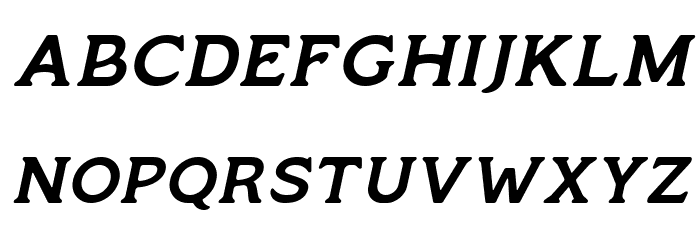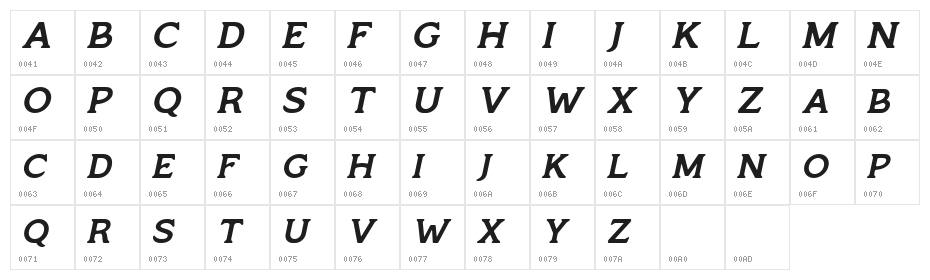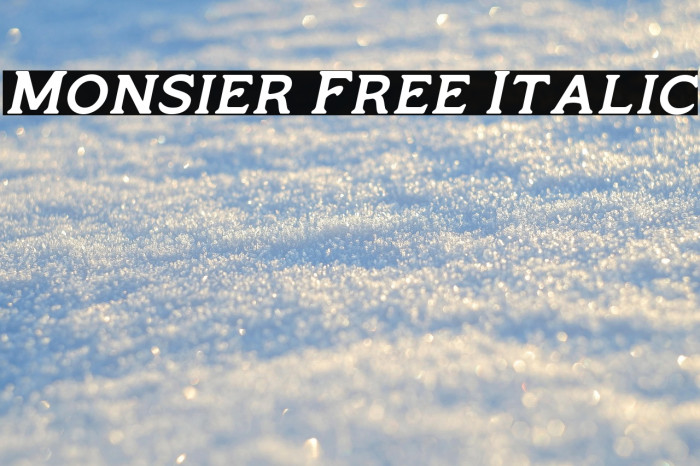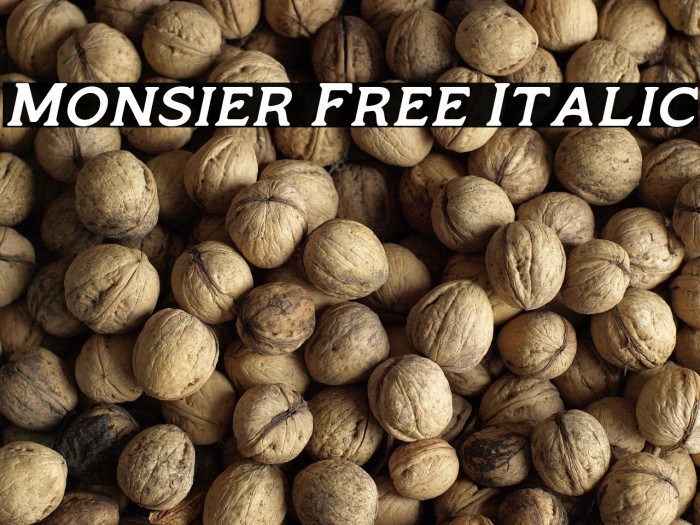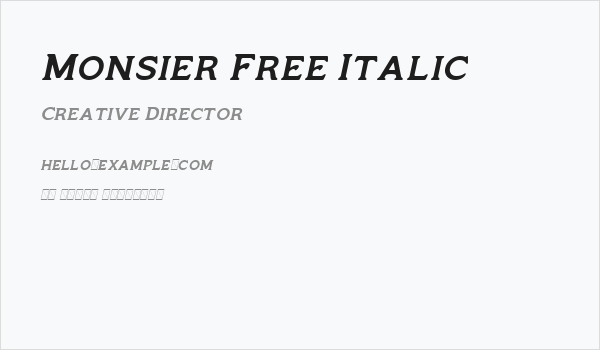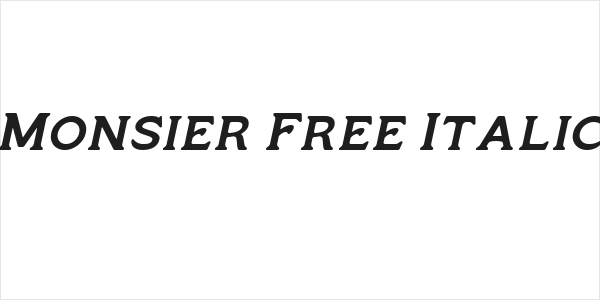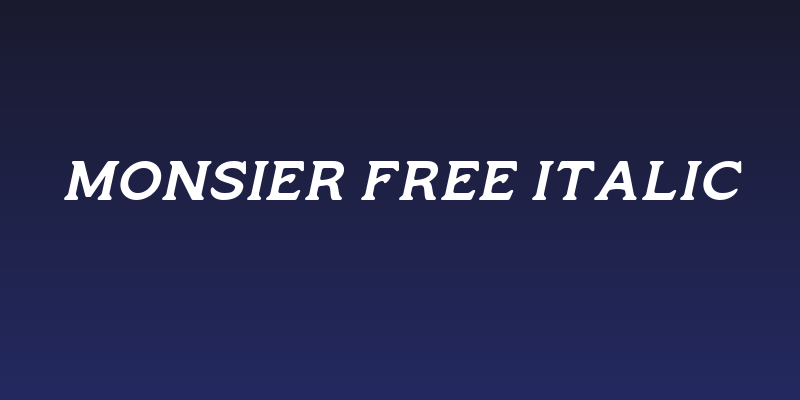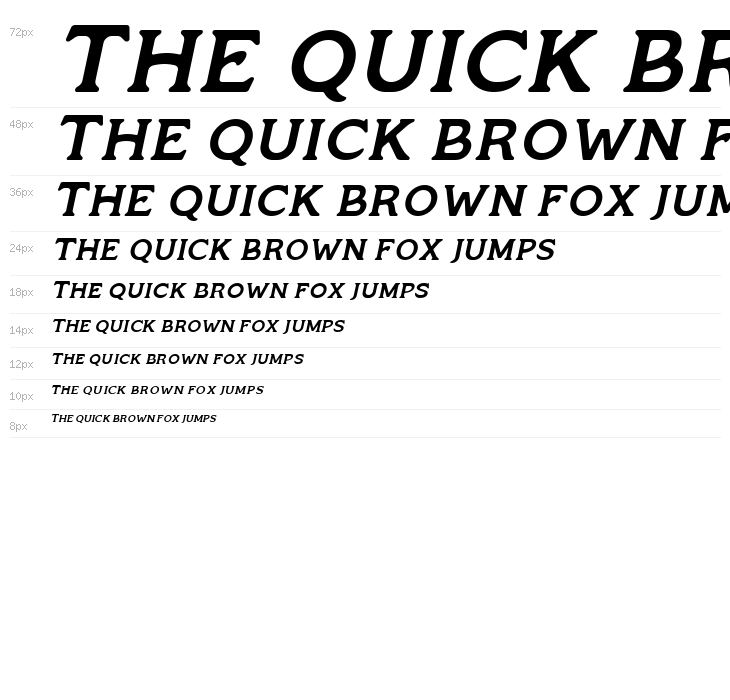
Monsier Free Italic Font
Monsier Free Italic Description
This font exudes a classic elegance with its italicized form, offering a sophisticated and slightly formal appearance. The letters are well-proportioned, with a gentle slant that adds a sense of motion and fluidity. The strokes are consistent, with moderate contrast between thick and thin lines, enhancing readability while maintaining a stylish flair. The serifs are subtle yet distinct, providing a traditional touch without overwhelming the overall design. This font is versatile, suitable for both digital and print media, and can be effectively used to convey a sense of refinement and professionalism.
| Proposed Projects | Ideal for wedding invitations, formal event programs, elegant branding, and editorial design. |